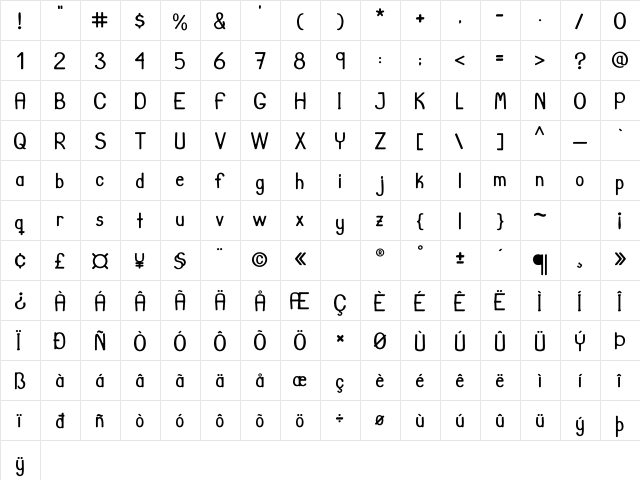
JuanMikes Regular
| Foundry | Don Marciano |
| Designer | Juan Miguel Castillo |
Design Context for JuanMikes Typeface
JuanMikes offers clean, dependable letterforms without strong stylistic allegiance, making it a practical choice for designers who need flexibility.